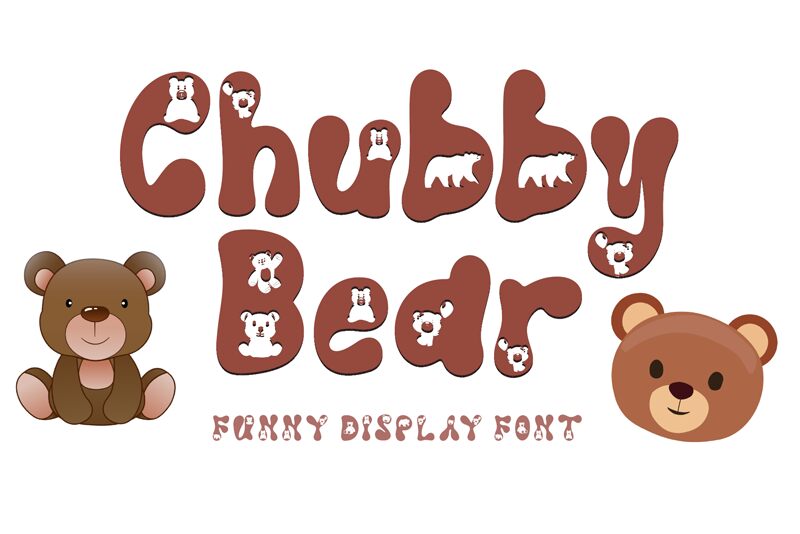
Chubby Bear font by Yoga Letter is a decorative free font with friendly characters and a relaxed attitude. Chubby Bear is soft and welcoming, designed with playful letter forms that immediately convey a childlike and informal sensibility. The unmistakable font communicates directly with the reader through whimsical style and an approachable attitude. A charming and inviting font to be used in logotypes or signage.
Chubby Bear can also be used in packaging design and other consumer-focused products. Due to its friendliness, this typeface is a great choice in content aimed at children, such as movies, toys, and other leisure activities. Finally, this font can also make a great cover and title page for books and magazines where an informal tone is needed.